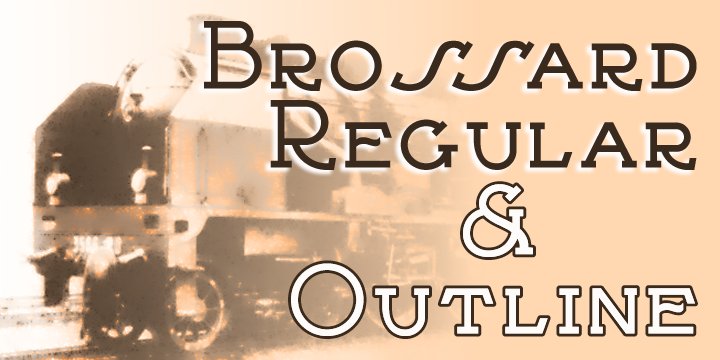
Brossard is a slab serif face redolent of French atmosphere and the design ethos of the 1920s. Use it for headines and posters that need that distinctive élan or where a Continental feel is called for.
Regular and outline faces are offered.